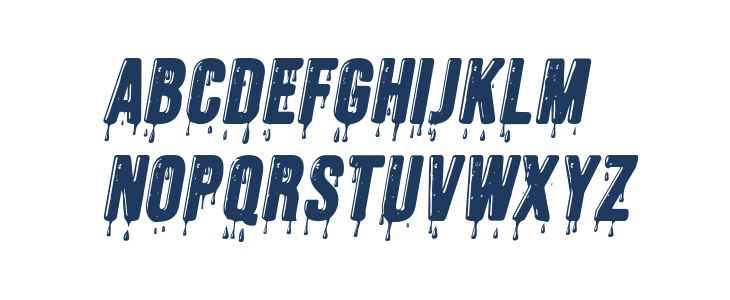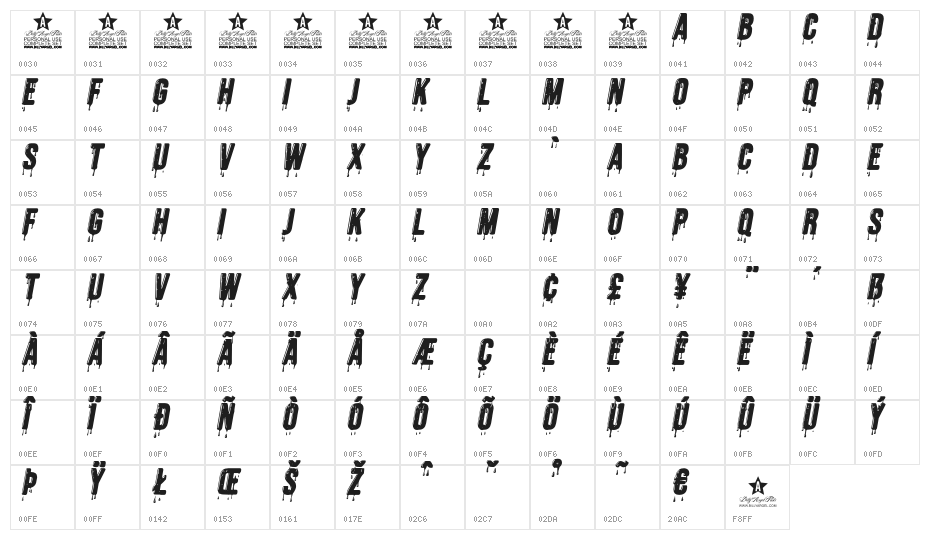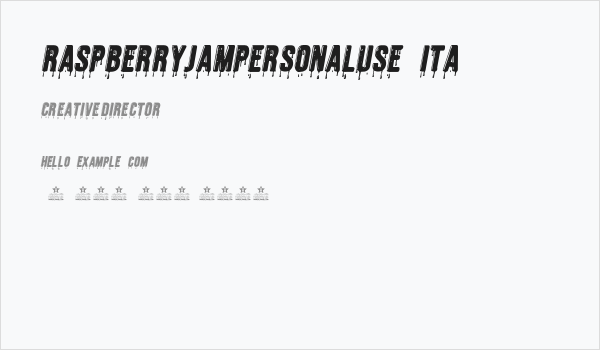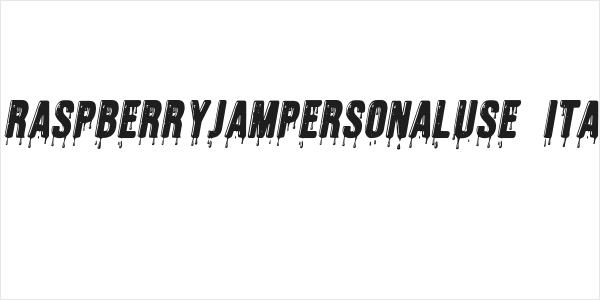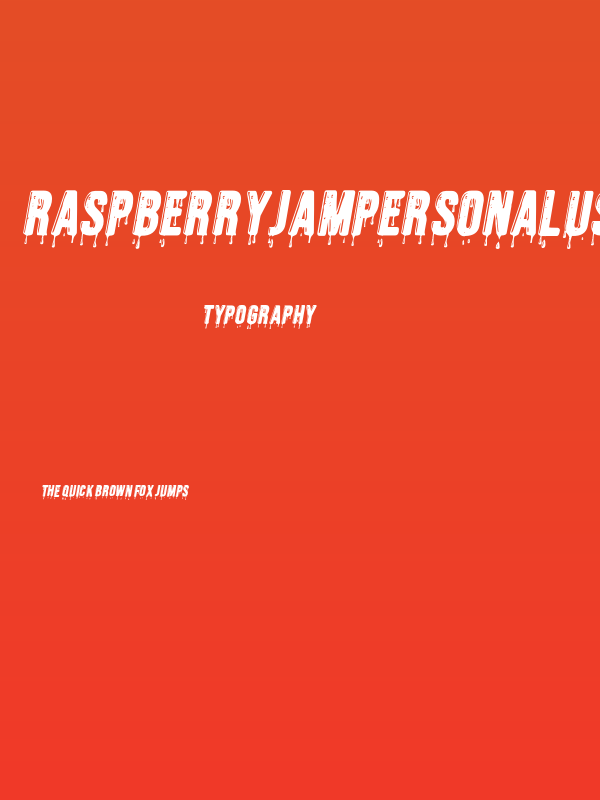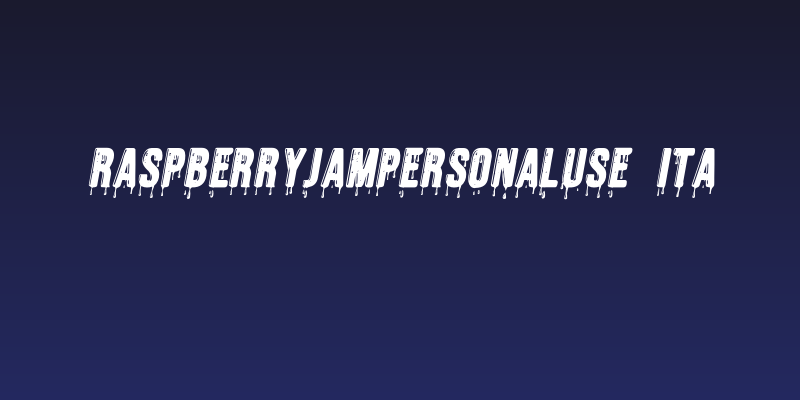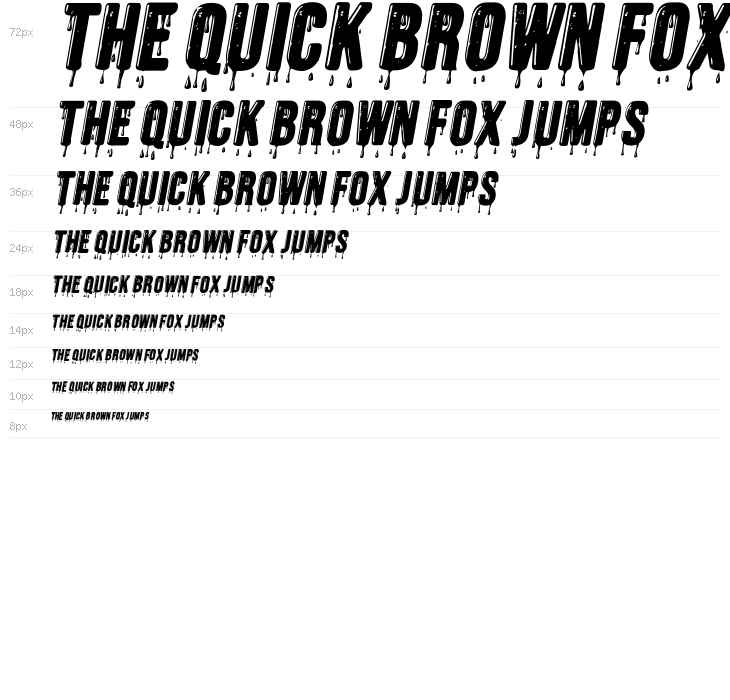
RASPBERRYJAMPERSONALUSE-Ita Font
RASPBERRYJAMPERSONALUSE-Ita Description
A bold, condensed display font with a distressed, dripping effect on the letterforms, giving it a grungy and horror-inspired appearance. The characters are uppercase only, with irregular edges and ink splatter details, creating a dramatic and eye-catching style.
| Overall Style | Decorative, Grunge, Horror |
| Use Case | Headlines, Posters, Logos |
| Proposed Projects | Horror movie posters, Halloween event flyers, band logos, edgy branding, themed party invitations. |